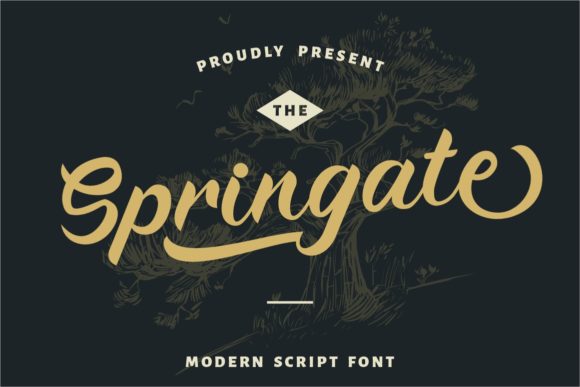
Step into the world of exquisite typography with Springate Font, a script font that will add a touch of elegance to your designs. Its flowing handwritten style is reminiscent of a calligrapher's pen, evoking a sense of timeless beauty and sophistication.
Unleash your creativity and let your words dance across the page with Springate. This font is a perfect match for a variety of projects, from personal invitations and greeting cards to professional branding and marketing materials. Imagine the impact your designs will make with Springate's graceful curves and elegant flourishes.
With Springate, you'll have the power to transform ordinary text into captivating works of art. Its incredibly distinct style will make your words stand out from the crowd, leaving a lasting impression on your audience. Whether you're designing a logo, crafting a social media post, or creating a stunning website, Springate will elevate your designs to new heights.
This font is more than just a collection of characters; it's a gateway to a world of endless creative possibilities. Embrace Springate's magic and watch your designs flourish. Let your imagination soar and create something truly special.
But wait, there's more! Springate is PUA encoded, which means you can effortlessly access all of its glyphs and swashes. This opens up a whole new realm of possibilities, allowing you to add intricate details and stunning flourishes to your designs.
So why settle for ordinary fonts when you can have Springate? Dive into the world of elegance and sophistication and make a statement with your designs. Let Springate be your guide on this creative journey, and together, you'll create masterpieces that will leave your audience in awe.